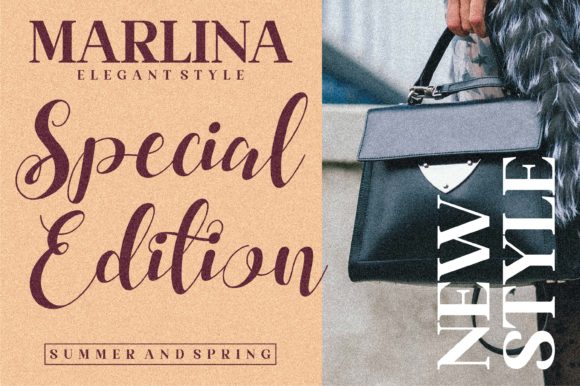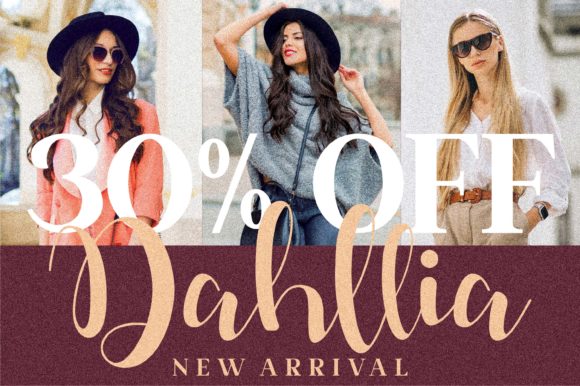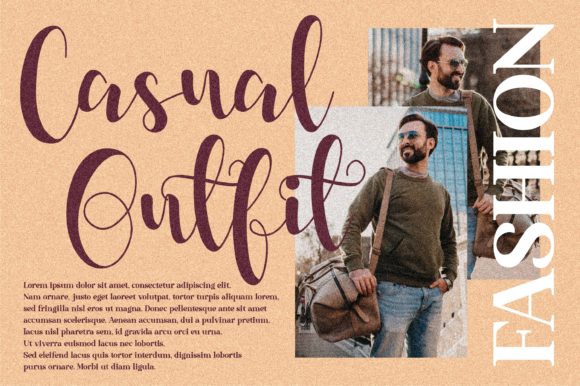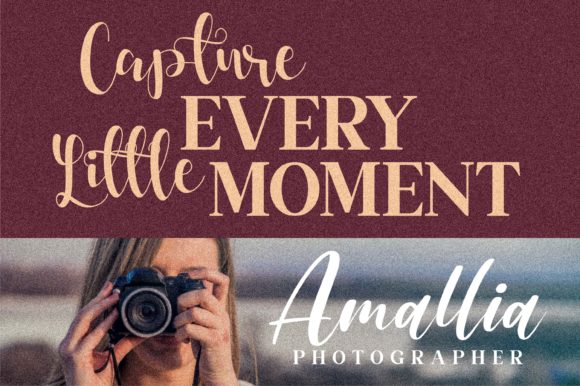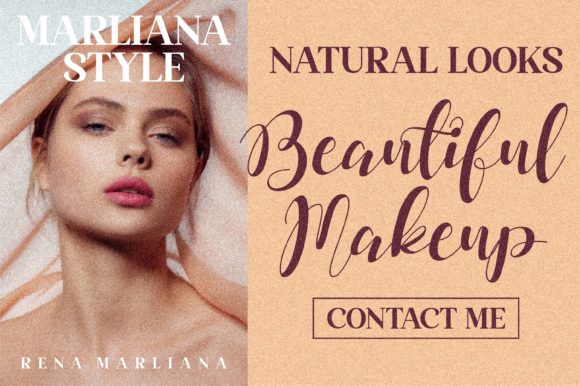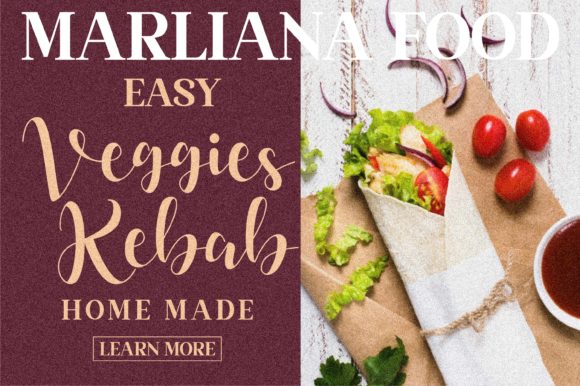
Introduction to Dahllia Claire Font
Dahllia Claire is a bold and fun script font.
Clean and a little bit quirky, this font is the perfect fit for all of your logos, branding, social media, and crafty DIY projects This font is PUA encoded which means you can access all of the glyphs and swashes with ease.
Key Features of Dahllia Claire Font
Why Choose Dahllia Claire Font?
Dahllia Claire Font offers exceptional quality and versatility, making it a valuable addition to your design toolkit. Whether you’re creating for personal projects or commercial use, Dahllia Claire Font delivers professional results.